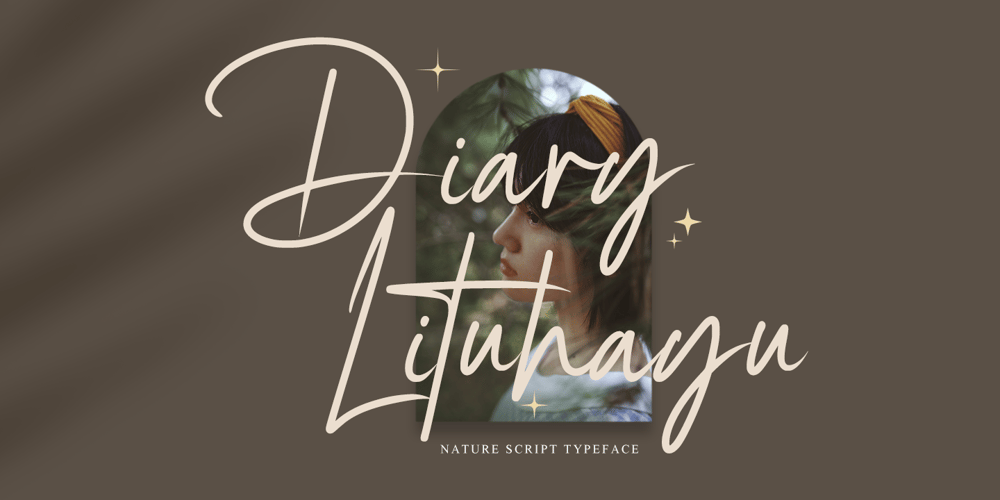
Diary Lituhayu Font Family was designed by Gie Studio and published by Gie Studio. Diary Lituhayu contains 1 styles and family package options. Introducing Diary Lituhayu fonts, a handwritten original work of art that you can have for your extraordinary business design needs. Will be a wonderful asset to your font library and perfect for many projects such as logos & branding, stationery, logo designs, social media posts, advertisements, product packaging, product designs, label, watermark, product branding and others.Diary Lituhayu includes Multilingual Options to make your branding globally acceptable.Features: Multilingual Support for 83 Country Stylistic alternates collections Ligature collections PUA Encoded Numeral and Punctuation Thank you for your visit and downloading premium fonts from Gie Studio